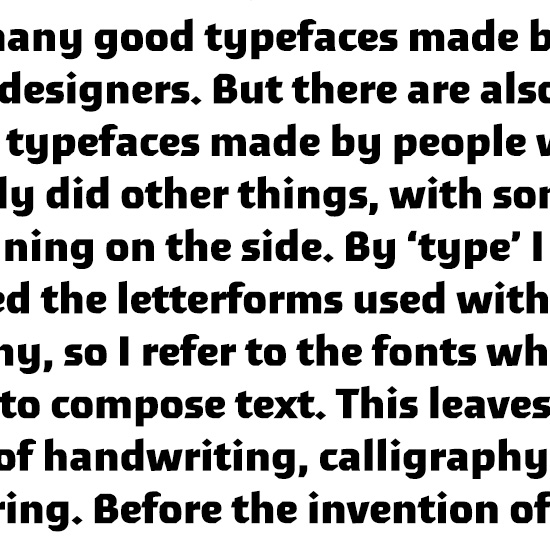
Meran (OurType)
Maurice Göldner's Meran family is a contemporary, eye-catching family. Its design grew out of an exercise to construct capital letters from strips of black paper. The letters were later translated into digital form and given matching roman and italic lowercase designs together with figures.
Meran is not easy to characterize. A sanserif? Undoubtedly, but much more too: with its fresh and distinctive look we might call it a 'contemporary rotunda'. A display type that works well as text, or a text face that performs impressively in display? It's both! Meran is a sanserif with an edge, which offers an exceptional blend between character and utility.
The Meran family consists of roman and italic designs in six weights: Thin, Light, Normal, SemiBold, Bold and Black. Next to the standard character set (STD), the pro character set (PRO) includes small caps; lining, old style and small cap figures (each in tabular and proportional widths); fractions; comprehensive superiors, inferiors, nominators and denominators; case sensitive punctuation sets; mathematical and monetary symbols; arrows; standard and discretionary ligatures; and a complete range of accents covering all (Latin script based) Western, Central and East European languages.
To offer additional choice and flexibility, the Meran family is built around three widths: normal, semi condensed and condensed. The semi condensed has been specially developed for font sizes above 14 point.
In advance of its commercial release, the typeface has been used for a number of publications including Stichwort, designed and illustrated by Thomas Müller, and for a semester planner created for the Hochschule für Grafik und Buchkunst, Leipzig. Both demonstrated just how well Meran can serve the demands of both, display and text. In 2007, Meran was awarded the '500 mal x' prize.